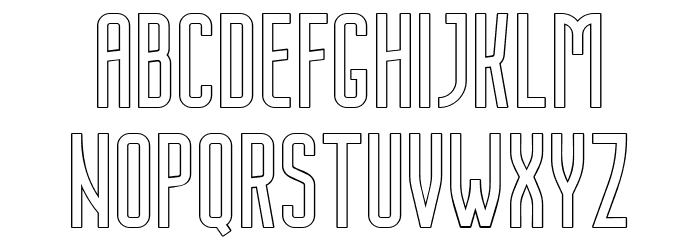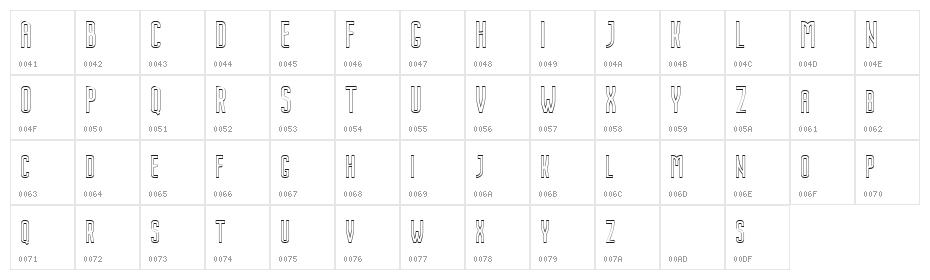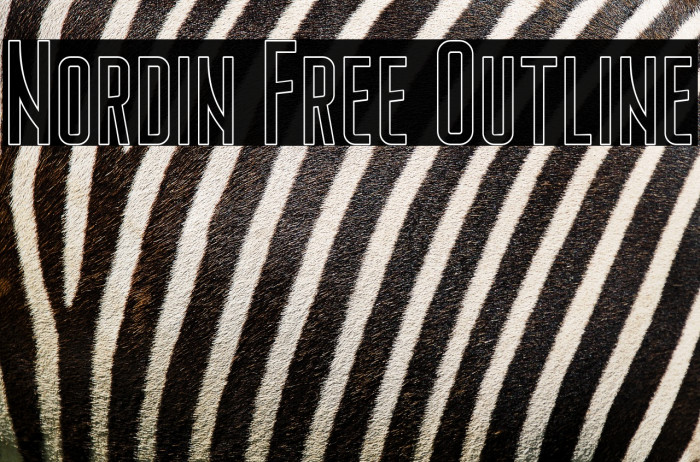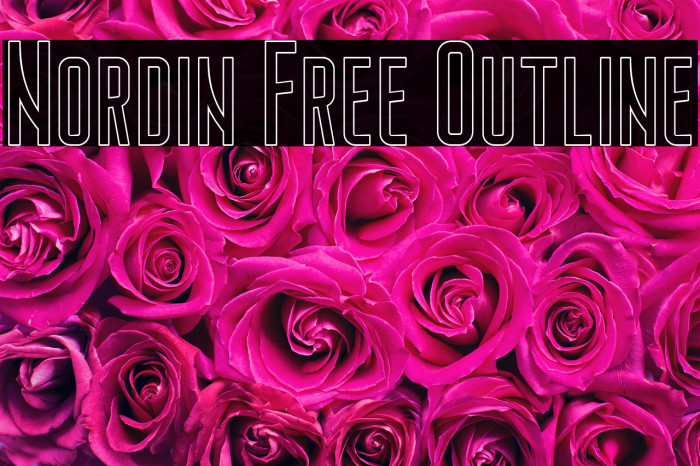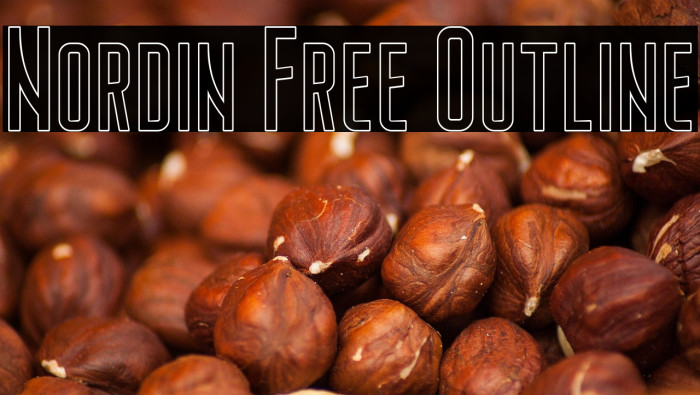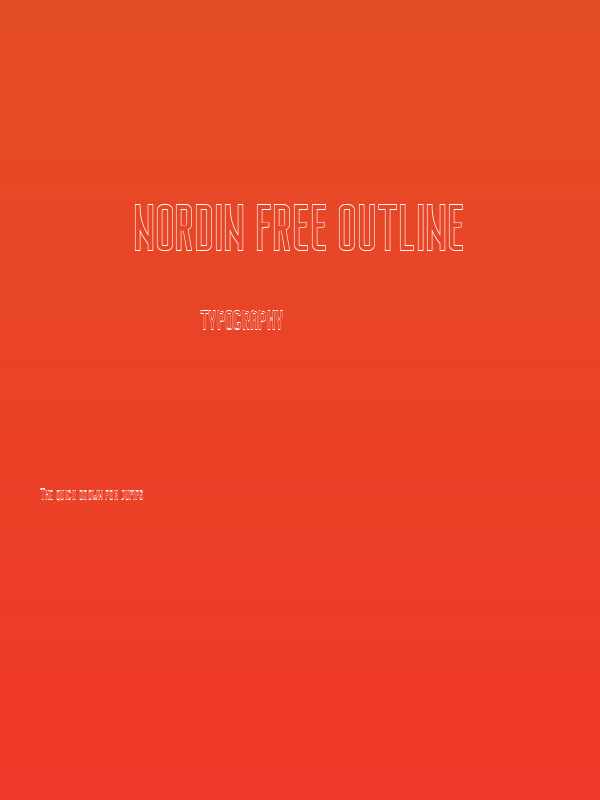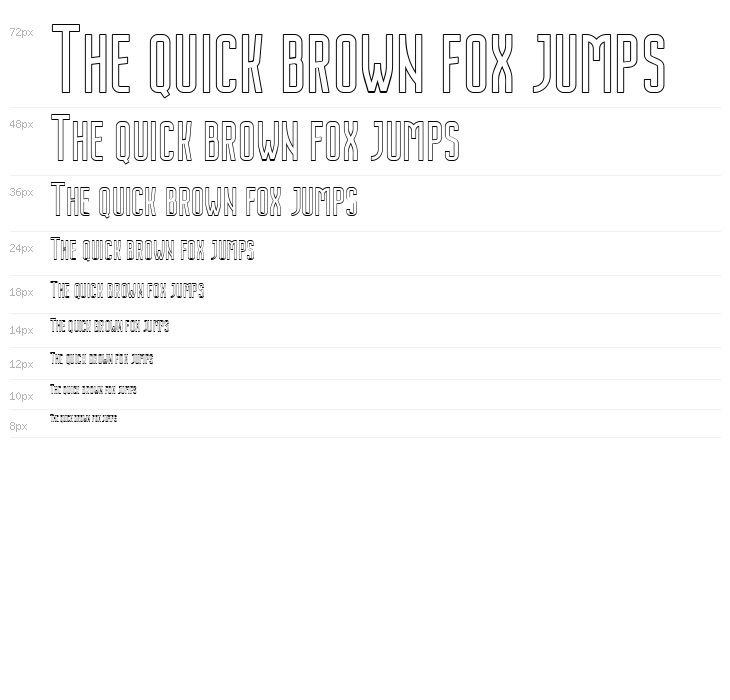
Nordin Free Outline Font
Nordin Free Outline Description
This font features a modern, geometric outline style with clean lines and a structured appearance. The uppercase letters are uniform in height, creating a cohesive look across the alphabet. The design is minimalistic yet bold, making it suitable for attention-grabbing headlines or logos. The outline nature of the font gives it a unique, airy feel, allowing for creative use of space in design projects. Its simplicity and clarity make it versatile for various applications, while the geometric shapes add a contemporary touch.
| Proposed Projects | Ideal for branding, posters, headlines, and modern design projects where a bold yet minimalistic look is desired. |